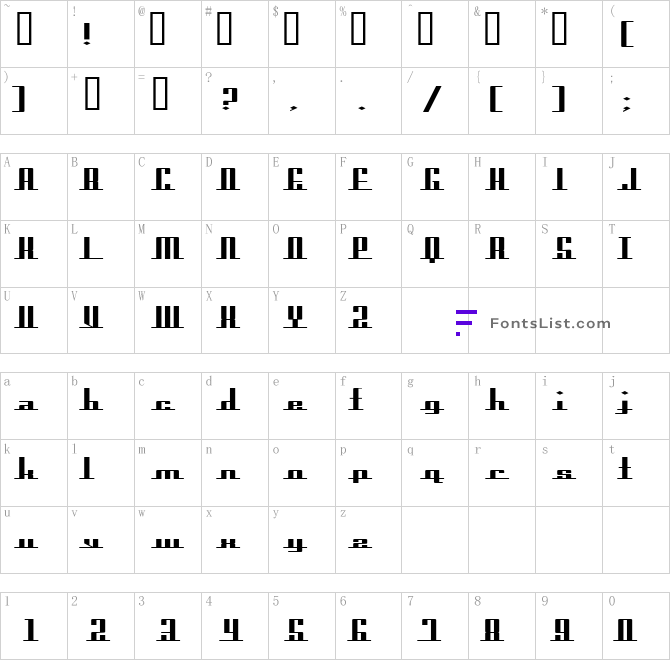
• Font Name:Americana Dreams ExpUpright
• Full Name:Americana Dreams ExpUpright
Americana-Dreams-ExpUpright.ttf is a very beautiful artistic font, Americana-Dreams-ExpUpright.ttf is widely used in the design and printing of various books and pictures,Americana-Dreams-ExpUpright.ttf has a strong visual impact,Americana-Dreams-ExpUpright.ttf is a commonly used font in newspapers, magazines and books, and is used in posters, e-commerce Poster design, store design, logo design, font design and other fields.Americana-Dreams-ExpUpright.